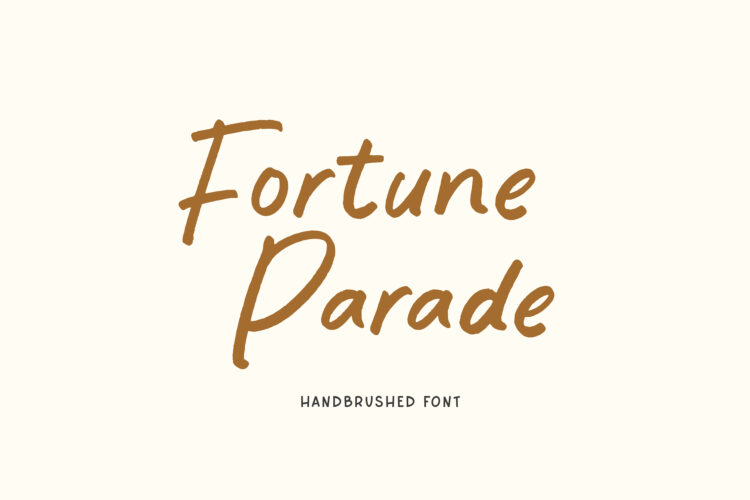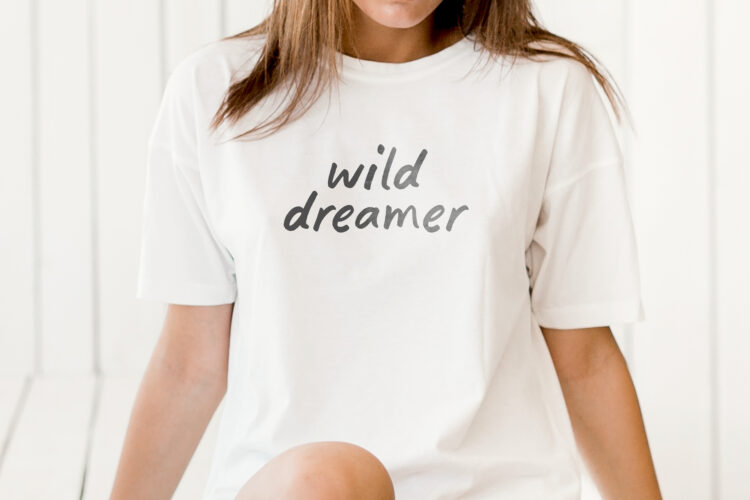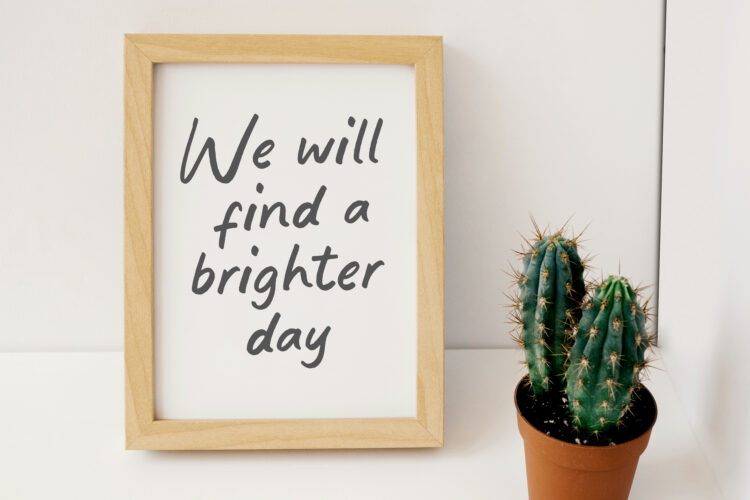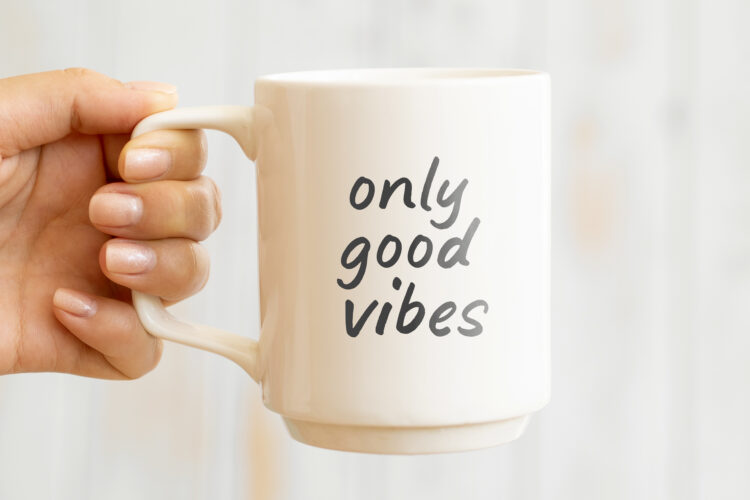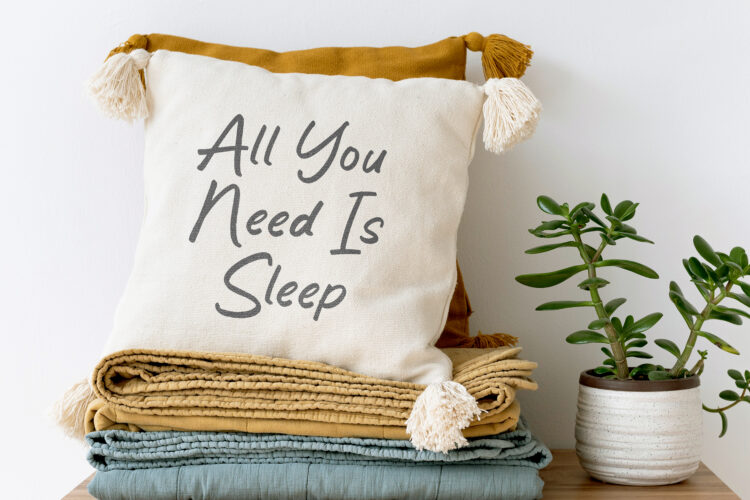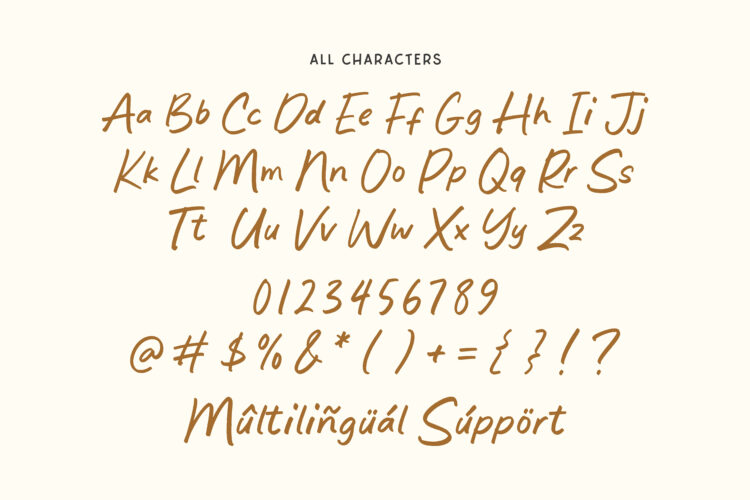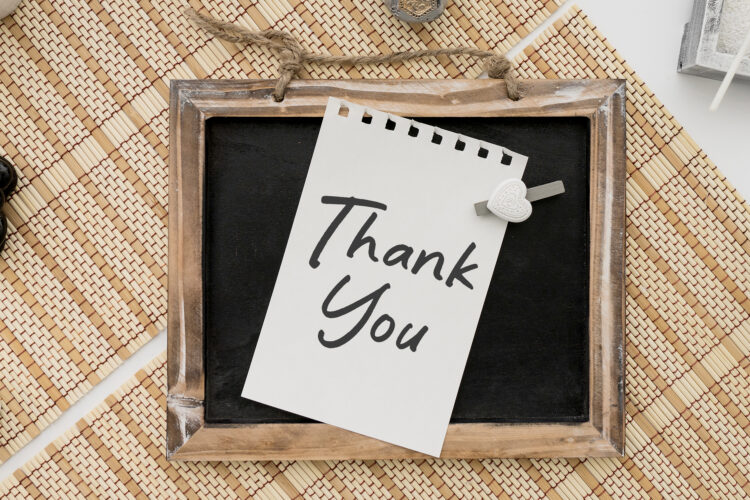
Fortune Parade
Fortune Parade is a Handbrushed Font
This font is a bold handbrushed font that captures the energy of natural brush strokes with a modern, expressive feel. Its textured characters and flowing style make it perfect for branding, logos, packaging, social media, posters, and eye-catching headlines. Fortune Parade brings confidence, creativity, and a handcrafted touch to every design.
Fortune Parade Font also supports multilingualism